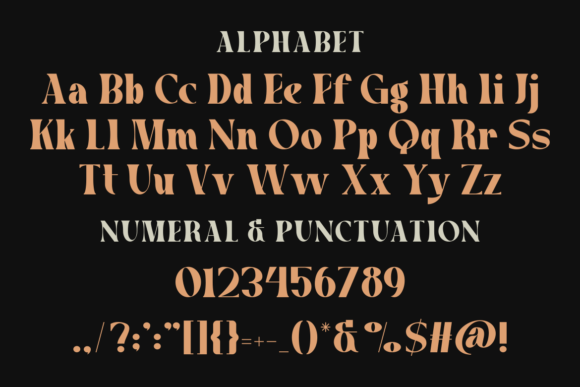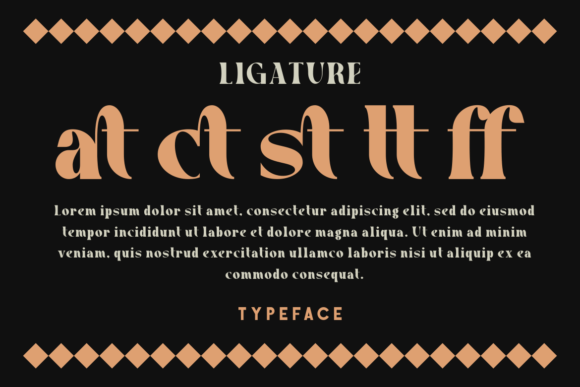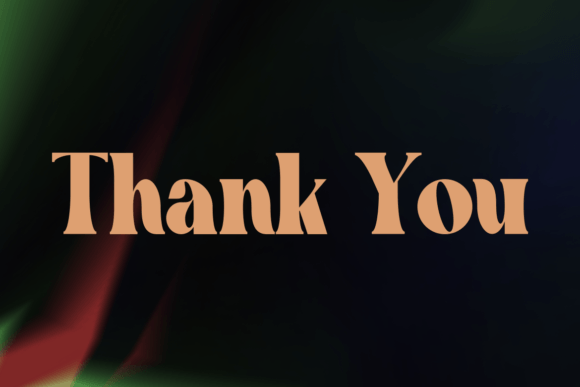
Batamy Font: Elevate Your Designs with Elegance and Boldness
Batamy is an elegant and bold serif font that has captured the hearts of designers and crafters alike. Its incredibly versatile style makes it the perfect choice for a wide range of projects, from gorgeous wedding invitations and beautiful stationary art to eye-catching social media posts and more. In this article, we’ll dive into the world of Batamy Font, exploring its features, uses, and benefits, and why it’s a must-have for any designer or crafter looking to elevate their designs.
The Features of Batamy Font
Batamy Font boasts a unique blend of elegance and boldness, making it a standout in the world of typography. Its serif design adds a touch of sophistication and refinement, while its bold lines ensure that your text stands out from the crowd. The font’s versatility is one of its most striking features, allowing it to be used in a variety of contexts, from formal and traditional to modern and playful.
Uses of Batamy Font
The uses of Batamy Font are endless, and its applications can be seen in various fields, including:
- Wedding Invitations: Create stunning wedding invitations that set the tone for the big day. Batamy Font’s elegant and sophisticated design makes it perfect for formal wedding stationery.
- Stationary Art: Add a touch of elegance to your stationary art, including notebooks, journals, and greeting cards. Batamy Font’s bold lines and serif design make it ideal for creating beautiful and eye-catching artwork.
- Social Media Posts: Take your social media posts to the next level with Batamy Font. Its bold and elegant design ensures that your text stands out from the crowd, making it perfect for creating eye-catching posts that grab attention.
- Branding and Packaging: Use Batamy Font to create stunning brand identities and packaging designs. Its versatility and sophistication make it perfect for businesses looking to elevate their brand image.
Benefits of Using Batamy Font
So, why should you choose Batamy Font for your next project? Here are just a few benefits of using this incredible font:
- Versatility: Batamy Font is incredibly versatile, making it perfect for a wide range of projects and applications.
- Elegance and Boldness: The font’s unique blend of elegance and boldness ensures that your text stands out from the crowd.
- Easy to Read: Batamy Font is easy to read, even at small sizes, making it perfect for body text and captions.
- High-Quality: Batamy Font is a high-quality font that is designed to deliver exceptional results.
Tips for Using Batamy Font
To get the most out of Batamy Font, here are a few tips to keep in mind:
- Experiment with Sizes: Batamy Font looks great at a variety of sizes, so don’t be afraid to experiment and find the perfect size for your project.
- Play with Colors: The font’s bold lines and serif design make it perfect for use with a range of colors and textures.
- Mix and Match: Batamy Font pairs well with a range of other fonts, so feel free to mix and match to create a unique look.
Batamy Font is an incredible addition to any designer’s or crafter’s toolkit. Its unique blend of elegance and boldness, versatility, and high-quality design make it perfect for a wide range of projects and applications. Whether you’re creating wedding invitations, stationary art, social media posts, or branding and packaging designs, Batamy Font is sure to elevate your designs and help you achieve your creative vision.